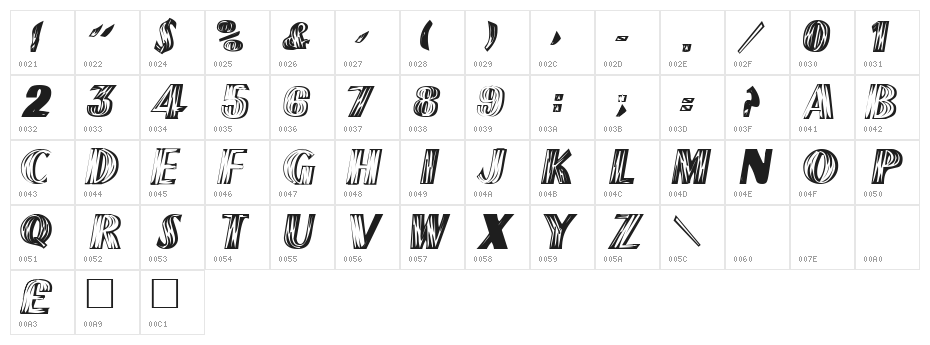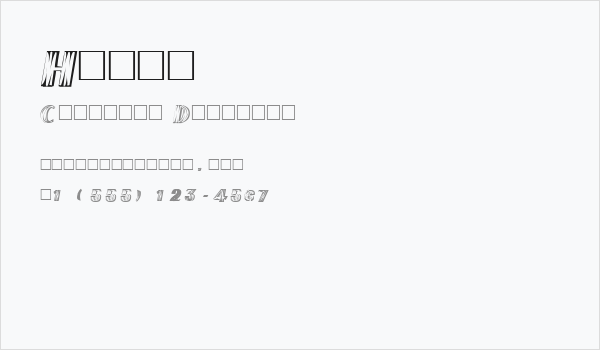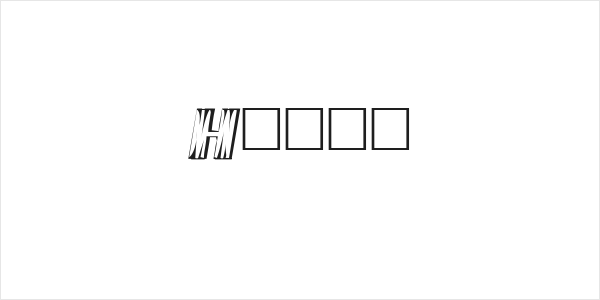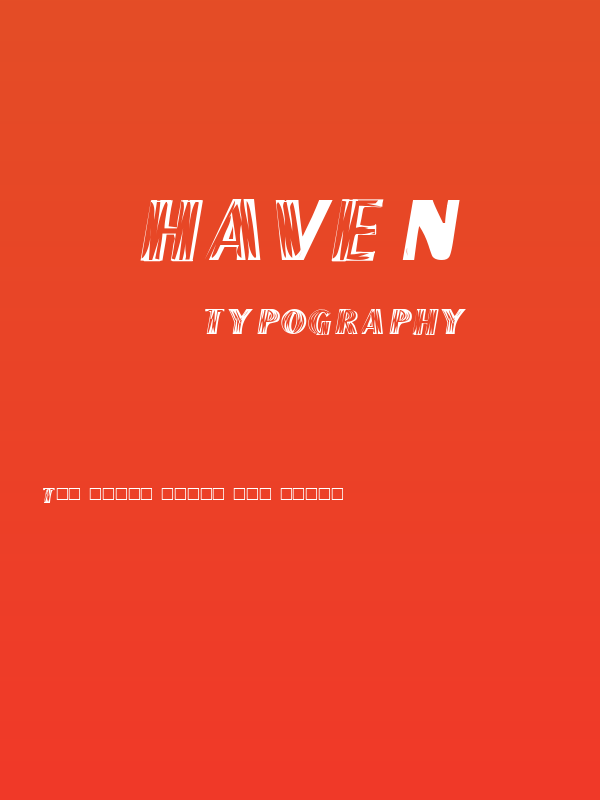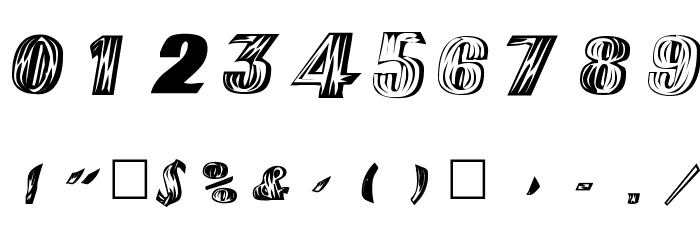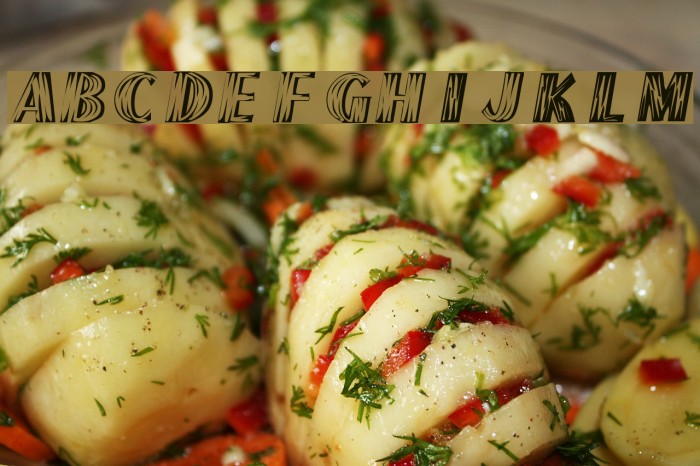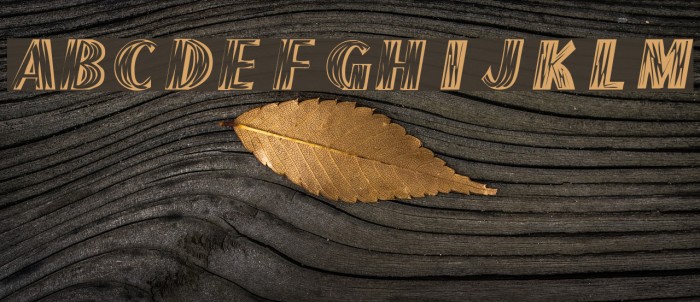
Haven Font
Haven Description
This font features a dynamic and energetic style with a distinct slanted and striped pattern. Each character is bold and eye-catching, making it ideal for attention-grabbing designs. The uppercase letters are particularly striking, with a sense of movement and flair. The numbers and special characters maintain the same boldness and unique design, ensuring consistency across all elements. This font is perfect for projects that require a modern and edgy look, with a touch of artistic flair.
| Overall Style | Modern, Decorative |
| Proposed Projects | Ideal for posters, headlines, branding, and any design needing a bold statement. |